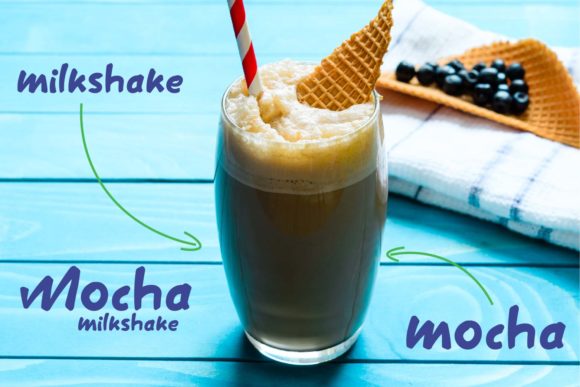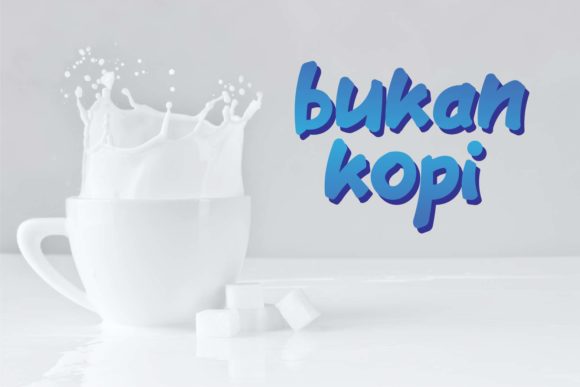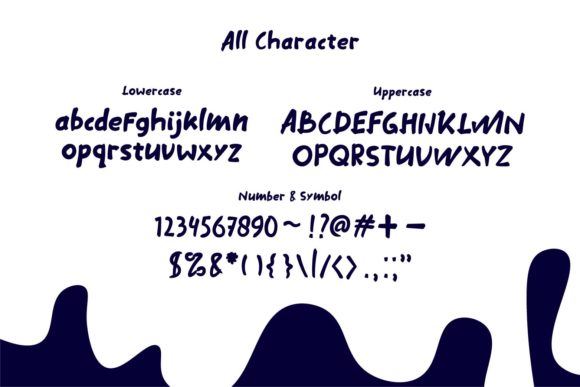
Introduction to Milk Font
Have you ever been working on a creative project, pouring your heart and soul into it, only to feel like it’s missing that special something? Maybe it’s the right color palette, or a dash of whimsy, but whatever it is, it’s not quite there yet. That’s where the Milk Font comes in – a bouncy and quirky display font that’s sure to add a fresh and contemporary touch to your designs.
As a designer, you know how valuable it is to have a reliable design resource at your fingertips. And that’s exactly what the Milk Font is – a high-quality, free download that’s waiting to elevate your next creative project to new heights. With its transparent background and playful vibe, this font is the perfect addition to any design.
Whether you’re working on a branding project, a social media campaign, or just a fun little side hustle, the Milk Font is sure to make your designs stand out in a crowd. So why not give it a try and see what kind of magic you can create with this unique display font?
Key Features of Milk Font
- Unique characteristics include a minimalist aesthetic and a bold, modern feel, making it perfect for a range of design projects.
- Designed to be highly legible, with clear lines and a clean typography that makes it easy to read.
Honest Review: Milk Font
The quality of the font is top-notch. It’s well-designed, with a clear and consistent aesthetic that makes it perfect for a variety of creative projects. I particularly love the transparent background option, which gives me a lot of flexibility when it comes to layering and composition.
That being said, there are a few limitations to keep in mind:
- May not be suitable for all design styles
- Some users may find the font a bit too playful
Overall, I’m really impressed with the Milk Font. It’s a great addition to any design library, and I’d definitely recommend it to others. With its high-quality design and transparent background option, it’s perfect for a wide range of creative projects.
Milk Font
Tips for Getting the Most Out of Milk Font
Experiment with different font sizes, colors, and styles to find the perfect combination for your design project. Use the transparent background option to create visually appealing graphics and avoid clutter. Take advantage of the high-quality design resource to elevate your creative projects.
The Milk Font is ideal for use in various creative projects, including graphic design, digital art, and typography. You can use it to create eye-catching graphics, logos, and other visual elements for your design projects.
The Great Vibes Font is a modern, handwritten font that can be used for creative projects requiring a fun and playful tone. It’s available for free download and comes with a transparent background, making it perfect for overlaying on images or videos. When to use: Social media graphics, advertisements, and other promotional materials.